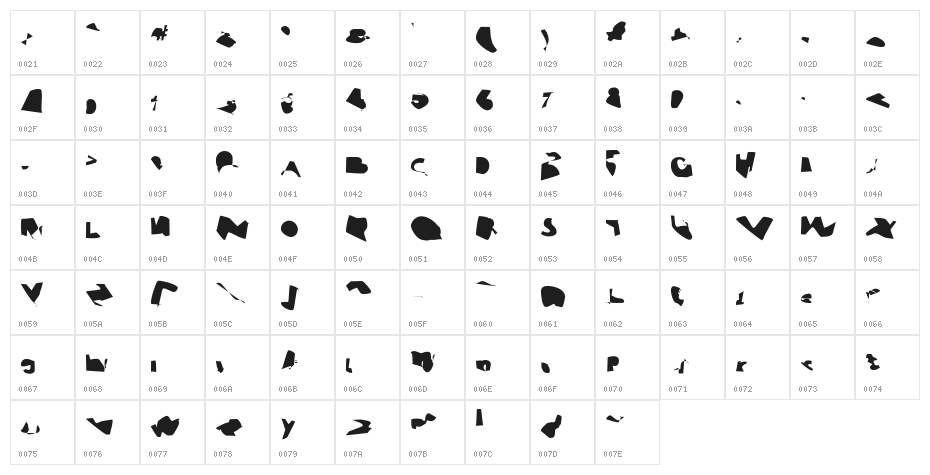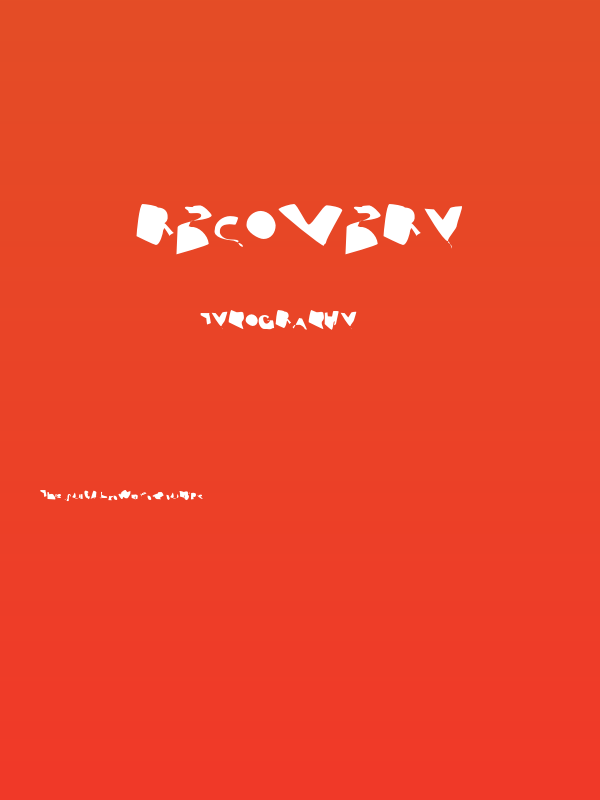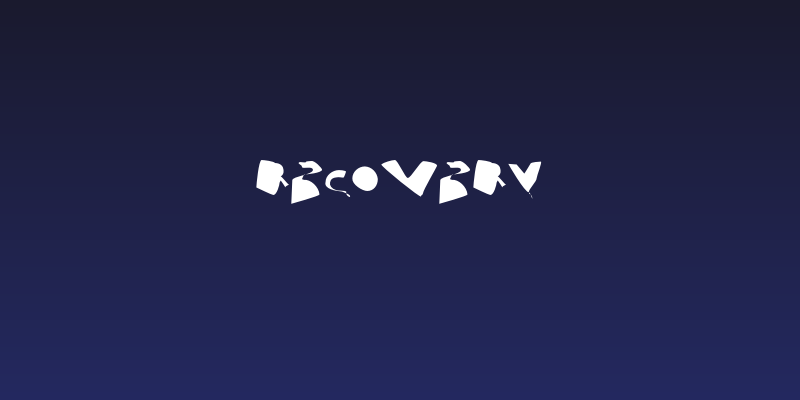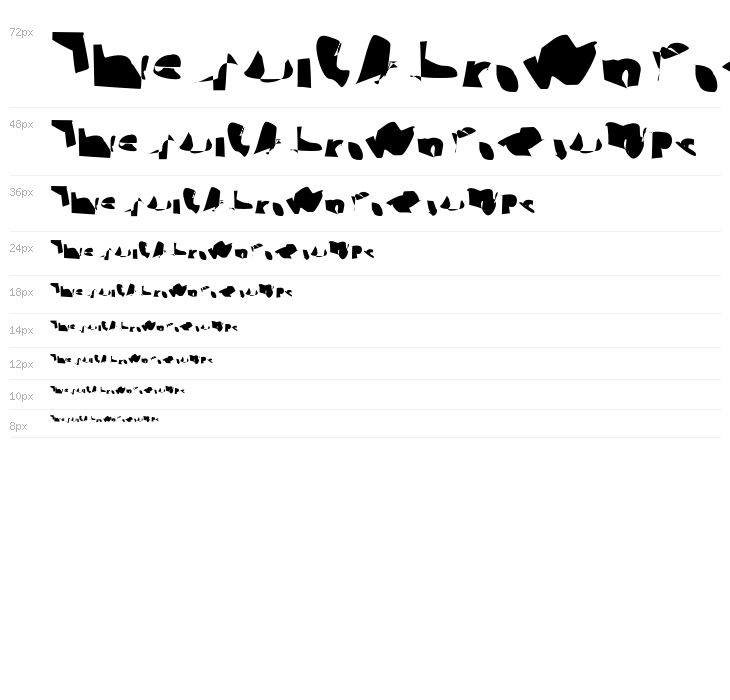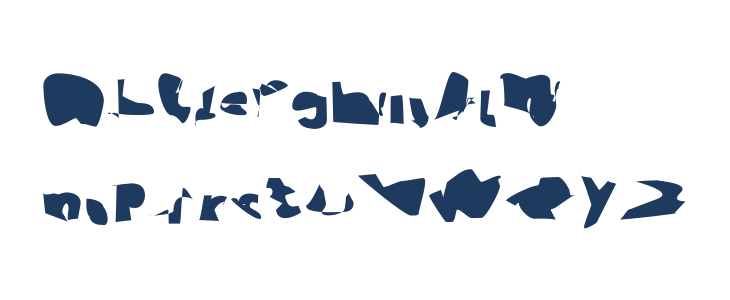
Recovery Font
Recovery Description
This font features a highly abstract and fragmented design, with each character appearing as if it has been shattered or torn apart. The letters and numbers are bold and irregular, with jagged edges and varying thicknesses, creating a chaotic and dynamic visual effect. The style is reminiscent of a collage or a piece of modern art, where the traditional forms of letters are deconstructed into unique shapes. This font's unconventional appearance makes it stand out, offering a distinct and edgy aesthetic that challenges readability but captivates with its artistic flair.
| Overall Style | Modern, Abstract |
| Use Case | Logos, Posters, Artistic Projects |
| Proposed Projects | Ideal for avant-garde posters, album covers, or any project seeking a bold, artistic statement. |